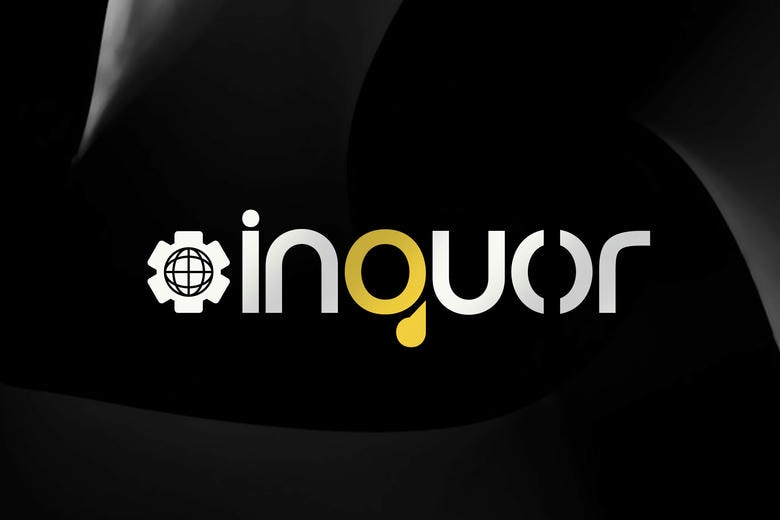
Inquor Font
Inquor is a contemporary sans serif typeface that was created in a clean structure, balance and a firm contemporary appearance. The smooth lettering and the lack of details provide its professional, futuristic, and incredibly versatile look.
Inquor is clear in every application, and has confidence in its use, whether it is branding, corporate identity, technology projects, logos, UI/UX design, websites, presentations, and editorial layouts.
Inquor Sans Serif Font